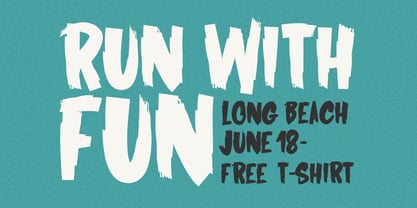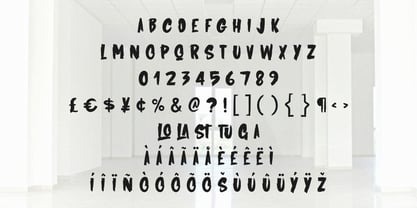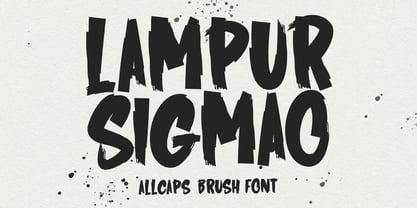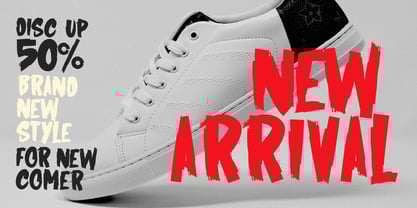
MC Lampur Sigmao
by Maulana Creative
The MC Lampur Sigmao Font Family was designed by Gilang Maulana and published by Maulana Creative. MC Lampur Sigmao contains 1 styles.
Lampur Sigmao handmade brush display font, fun character with alternates and ligatures. To give you an extra creative work. Lampur Sigmao handmade brush display font support multilingual language.
Designers: Gilang Maulana
Publisher: Maulana Creative
Foundry: Maulana Creative